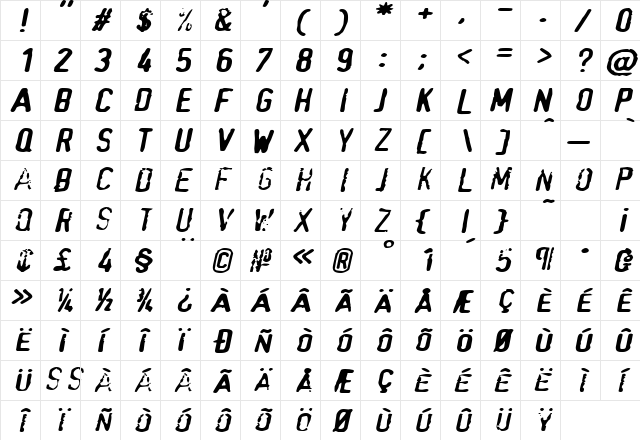
Top SecretExtended Oblique
Design Context for Top SecretExtended Typeface
Top SecretExtended is a composed and adaptable typeface that performs quietly and consistently across a wide range of design contexts. The slanted form adds forward momentum and visual energy.
Pro Tip: Use Top SecretExtended for emphasis, pull quotes, and subheadings where its slanted energy can add rhythm to the layout.